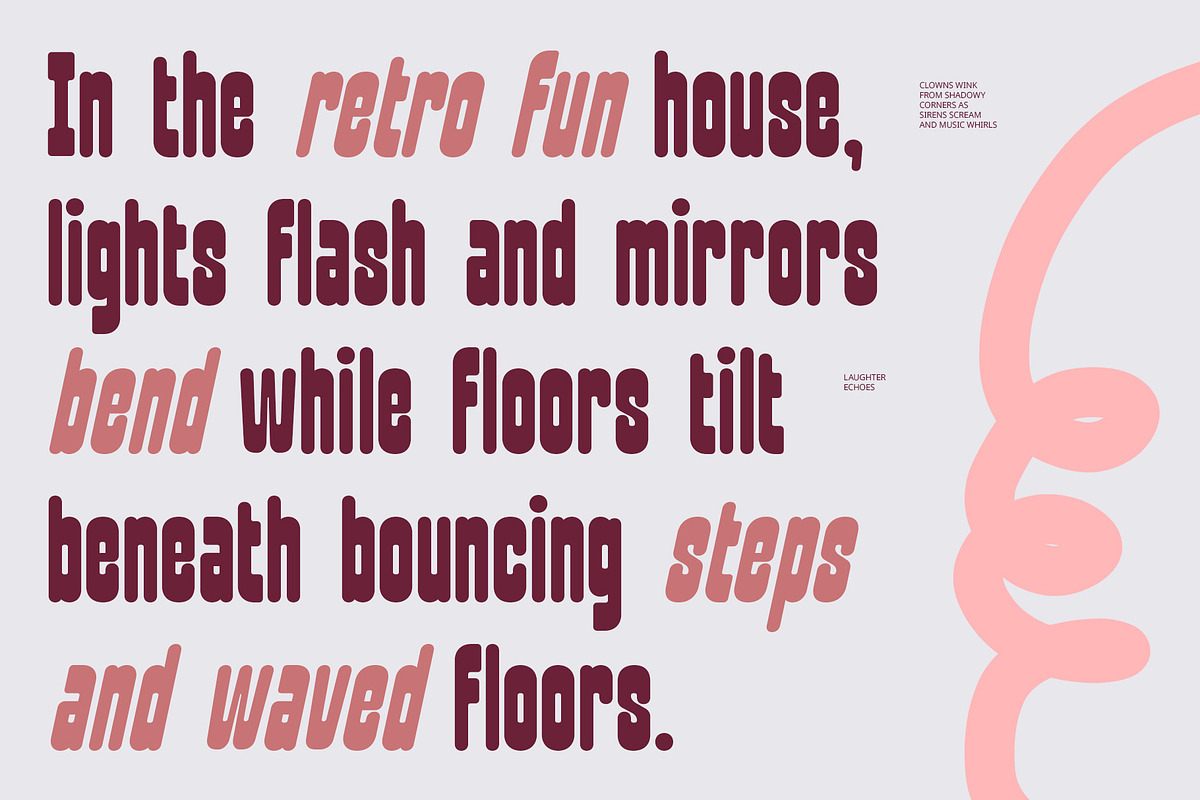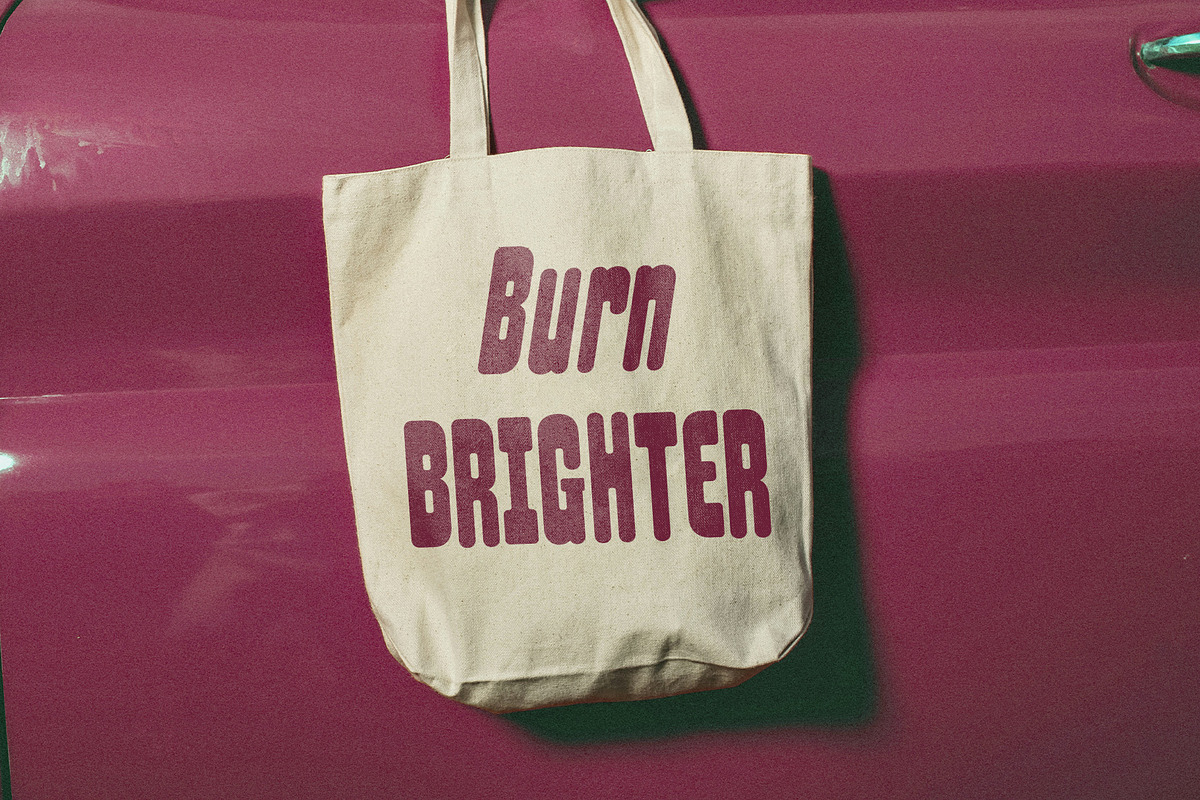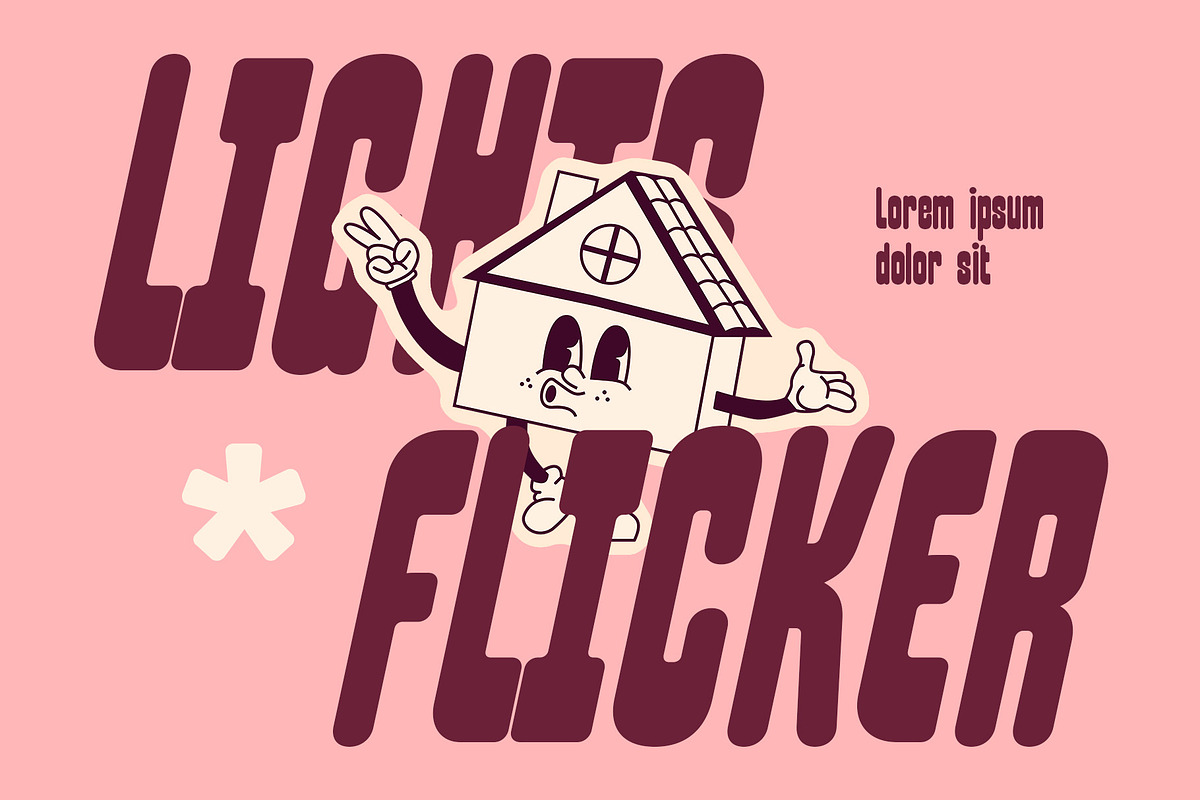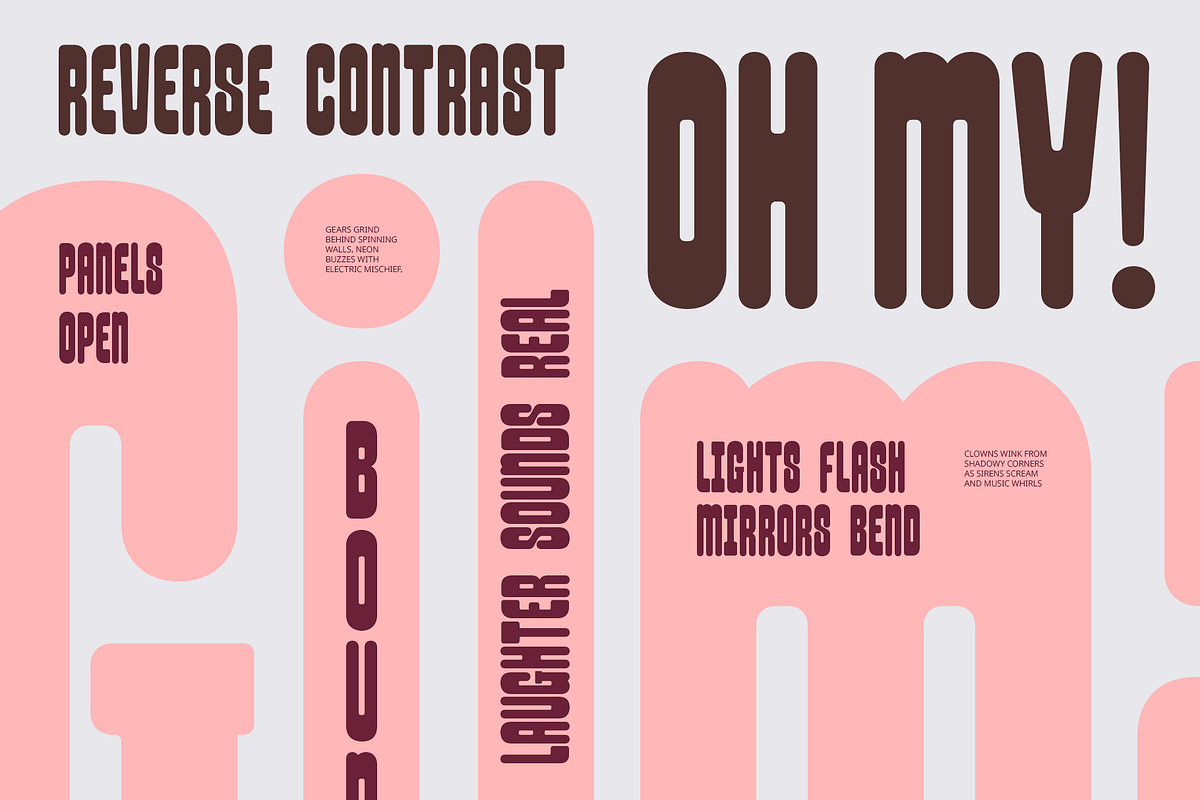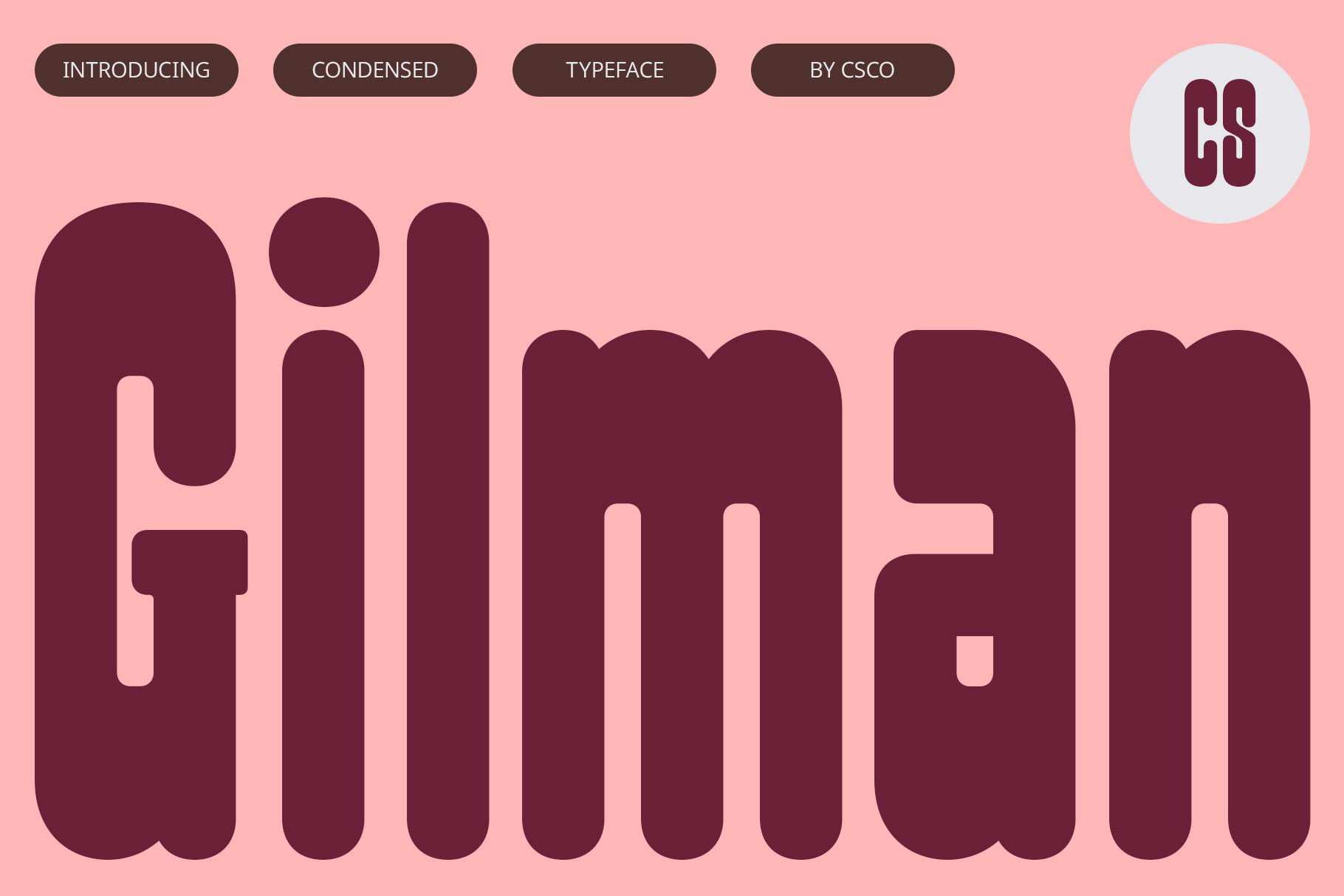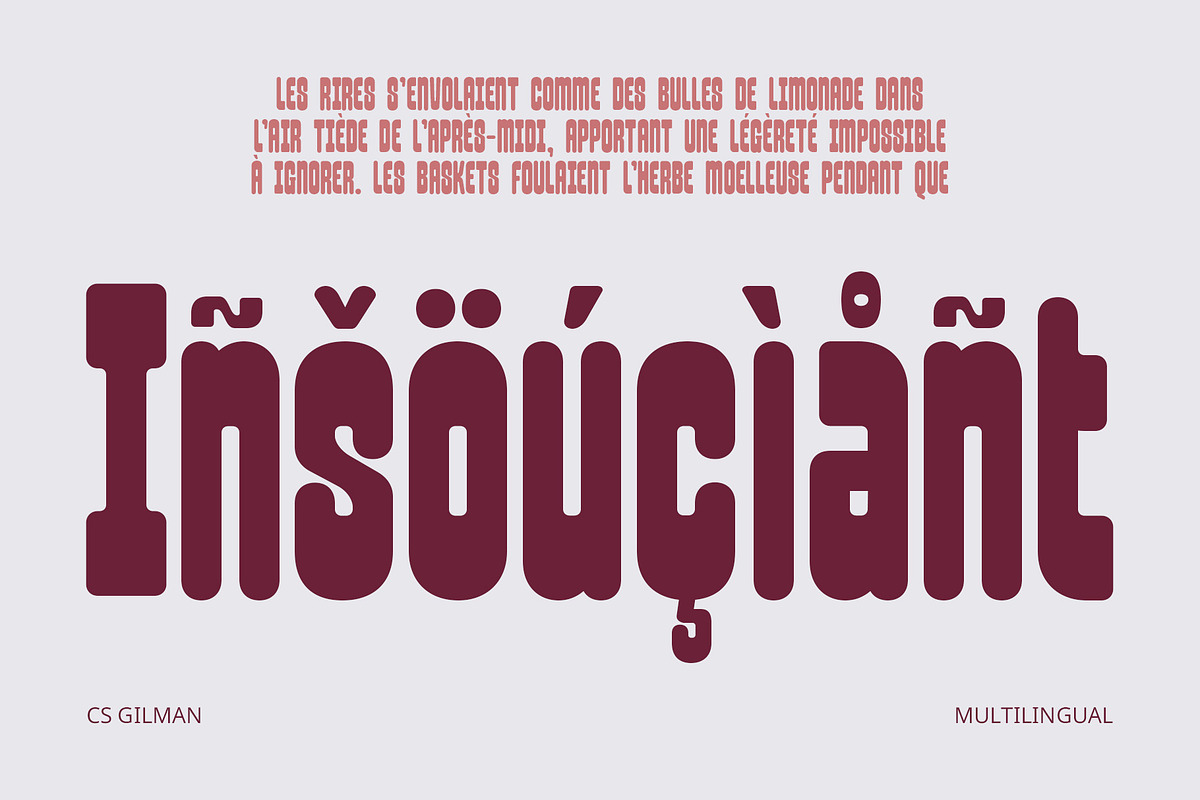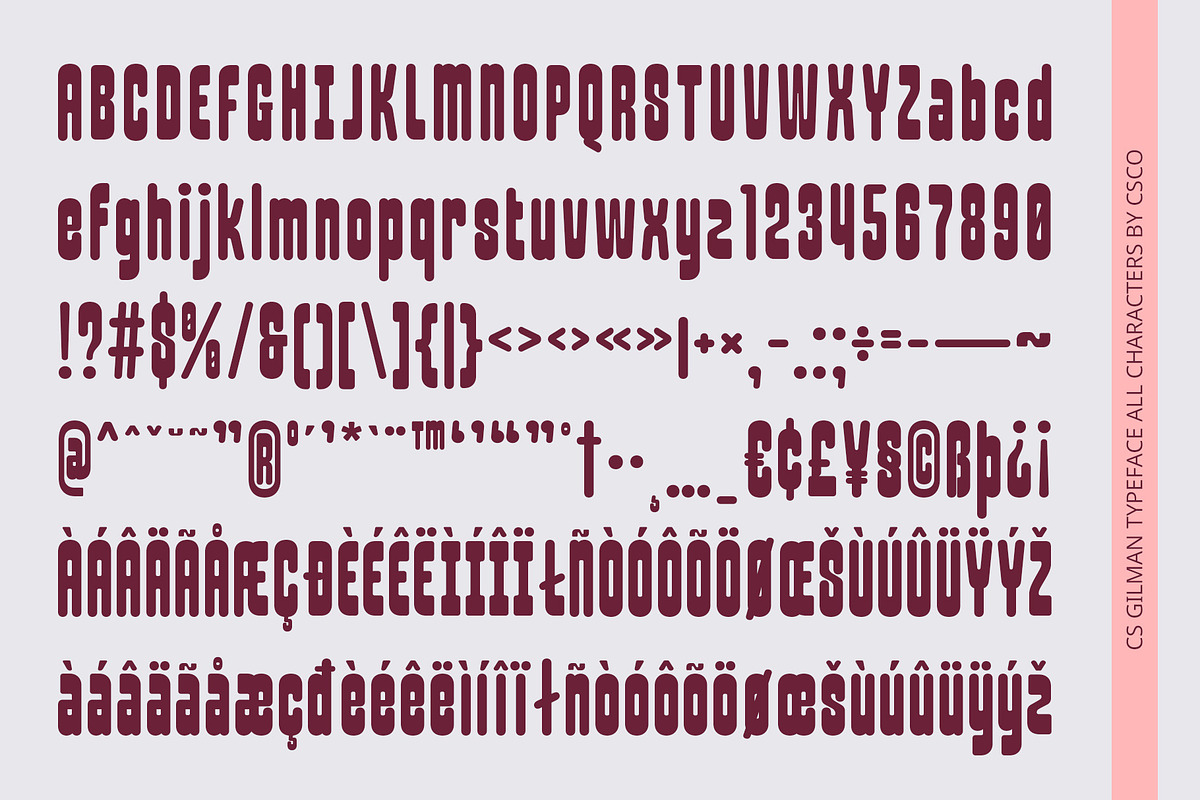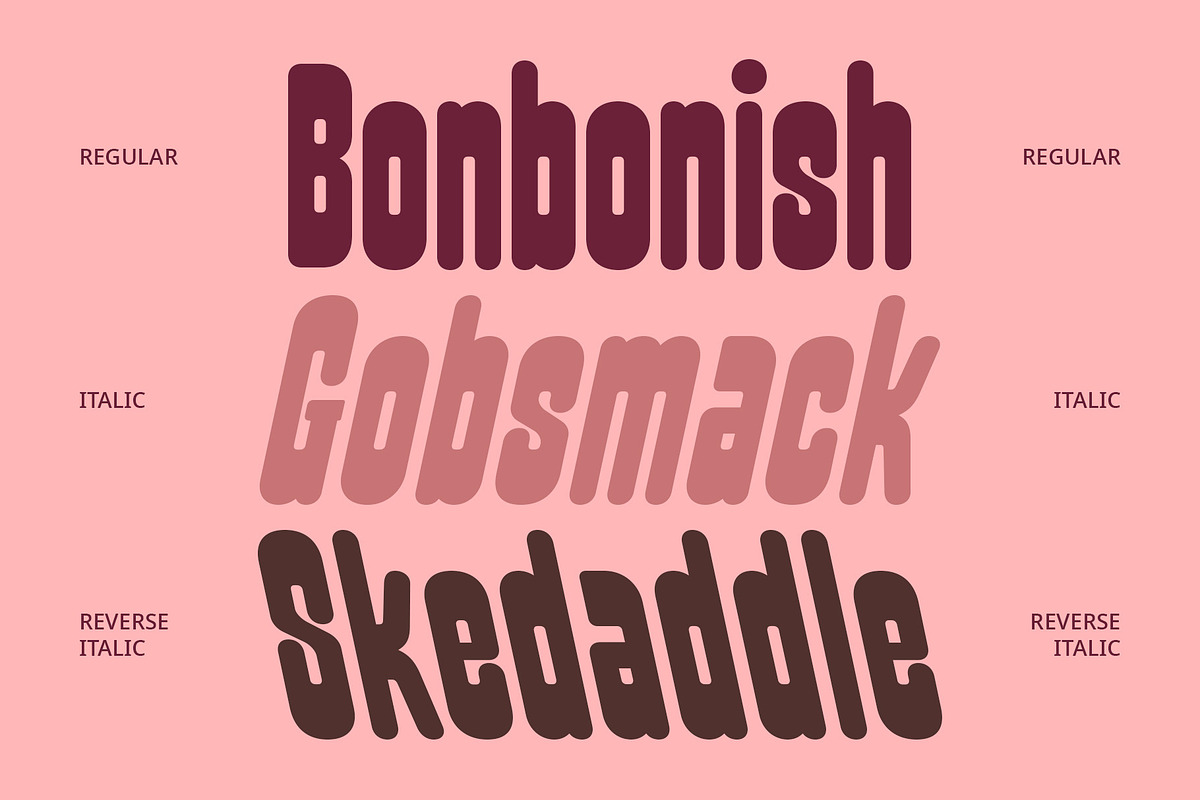
CS Gilman – Bold Font
CS Gilman – Bold Font: Retro Funk Meets Friendly Power
Condensed Form with Eye-Catching Presence CS Gilman is a bold display font with a condensed structure designed to pack a punch. Its narrow yet powerful letterforms allow for strong visual impact even in tight spaces, making it perfect for headlines, posters, and attention-grabbing branding.
Rounded Edges for a Friendly, Funky Feel What sets CS Gilman apart is its soft, rounded corners that balance out the boldness with an inviting and playful character. These subtle curves lend the font a retro funky vibe, reminiscent of 90s aesthetics and nostalgic pop culture, while keeping it approachable and modern. The result is a typeface that feels both expressive and easygoing.
Retro Aesthetic with a Modern Twist CS Gilman blends vintage inspiration with contemporary design sensibility. Its retro feel evokes classic funk and groove styles, yet its clean execution ensures relevance in today’s creative landscapes. This fusion makes it an excellent choice for music posters, youth-centric visuals, editorial headlines, or any project that needs a bold yet stylish personality.
Perfect for Nostalgic and Creative Designs Whether you’re channeling the energy of old-school dance flyers, designing vibrant branding for modern products, or building visuals that need flair and friendliness, CS Gilman delivers. Its bold condensed style with rounded edges gives your text charm, strength, and a dash of creative rebellion—all in one typeface.
- CS Gilman Regular
- CS Gilman Italic
- CS Gilman Reverse Italic